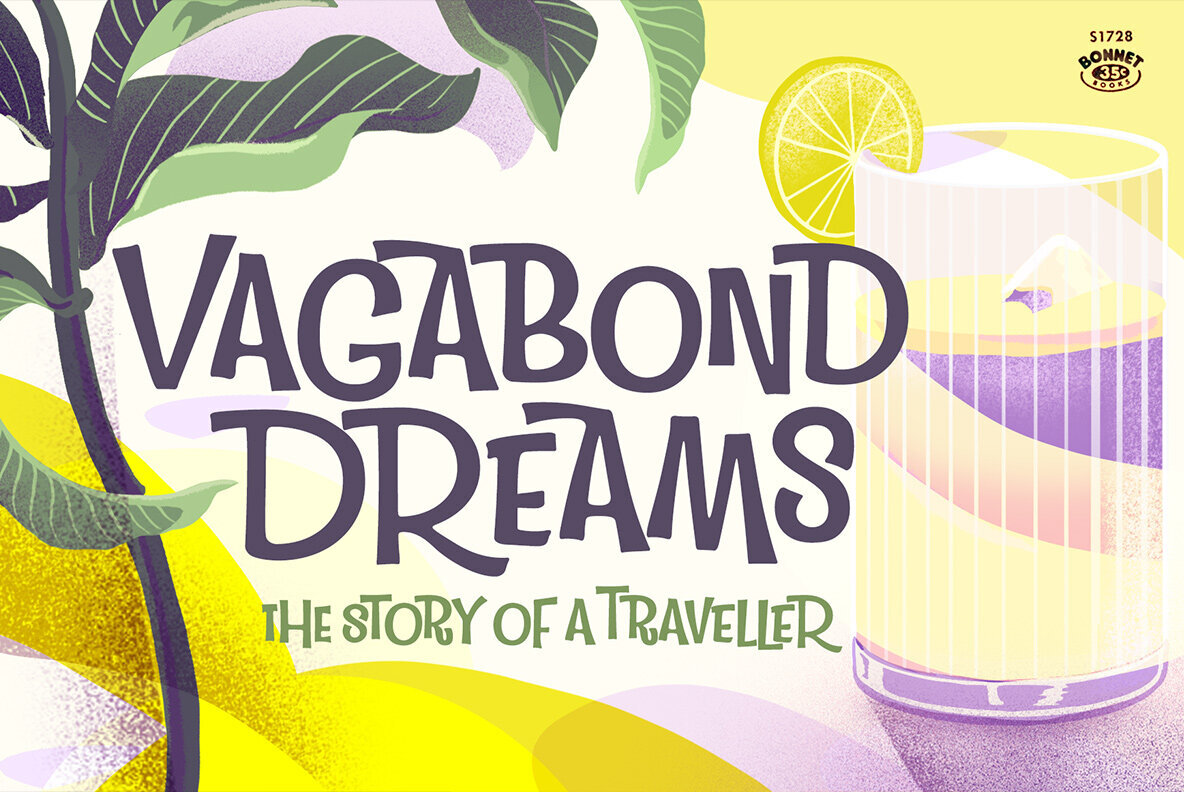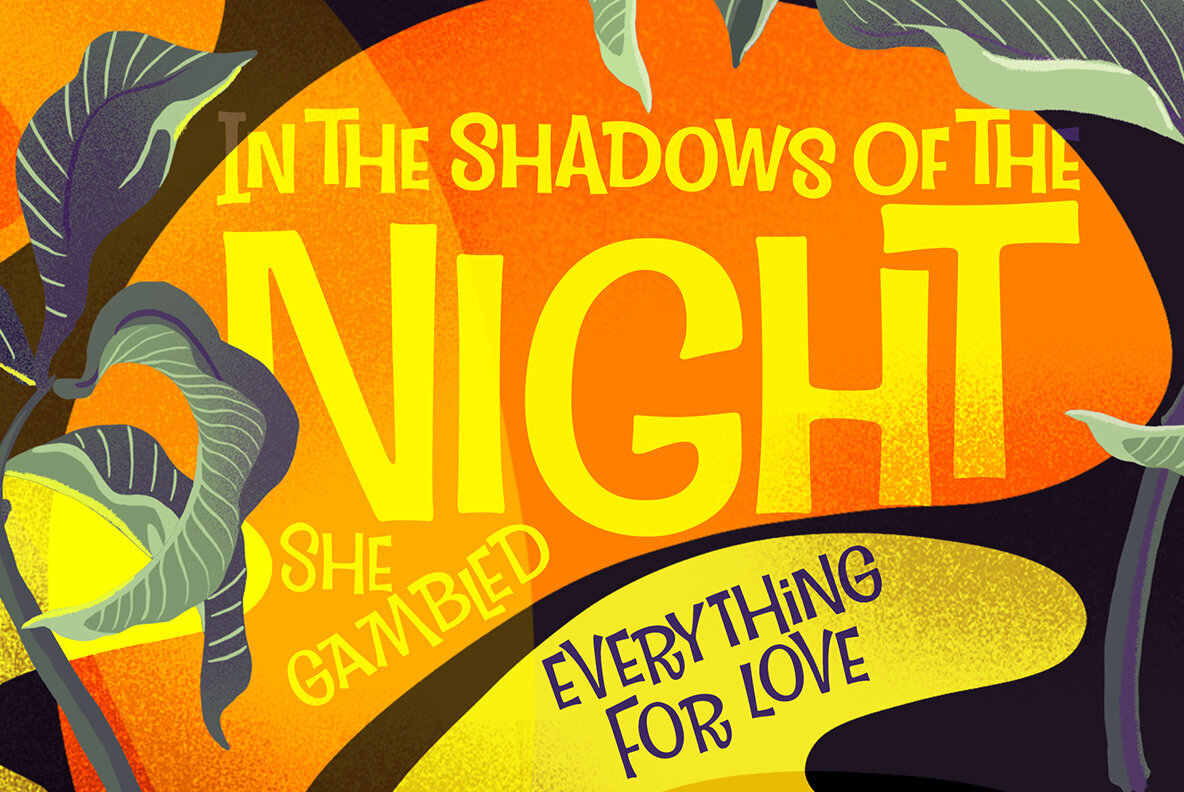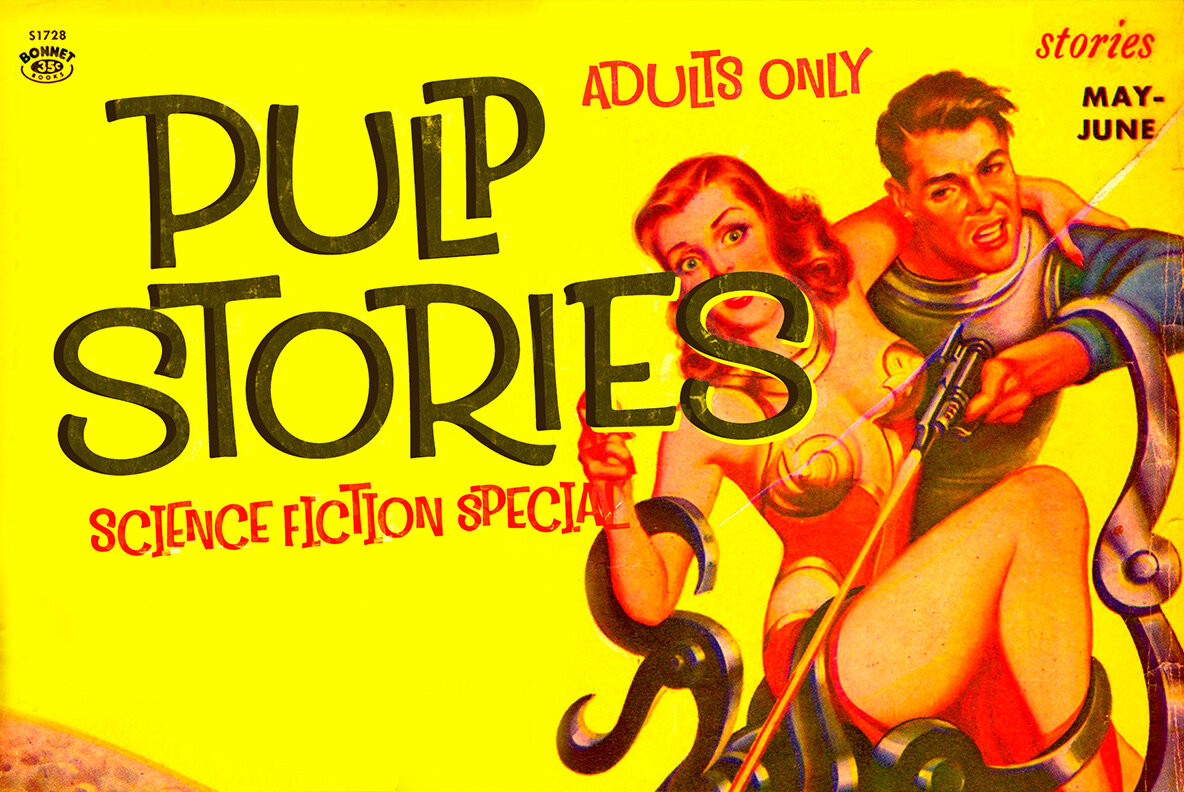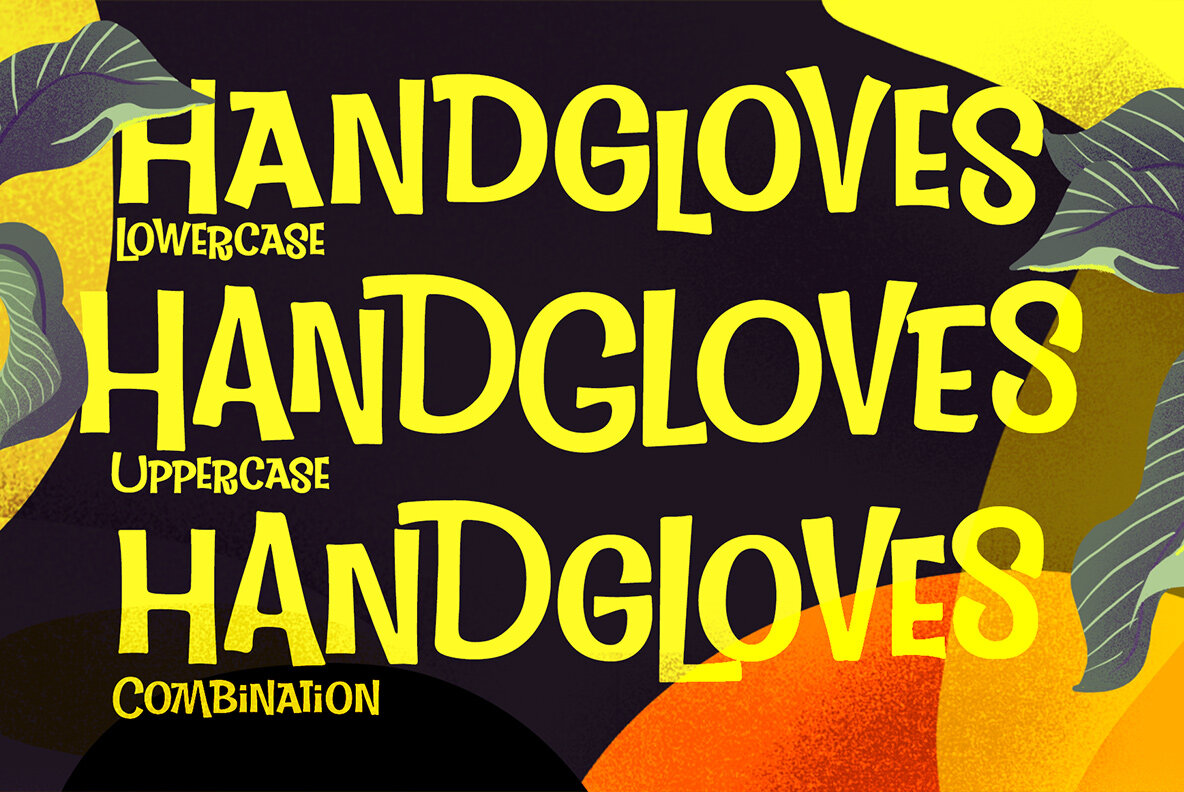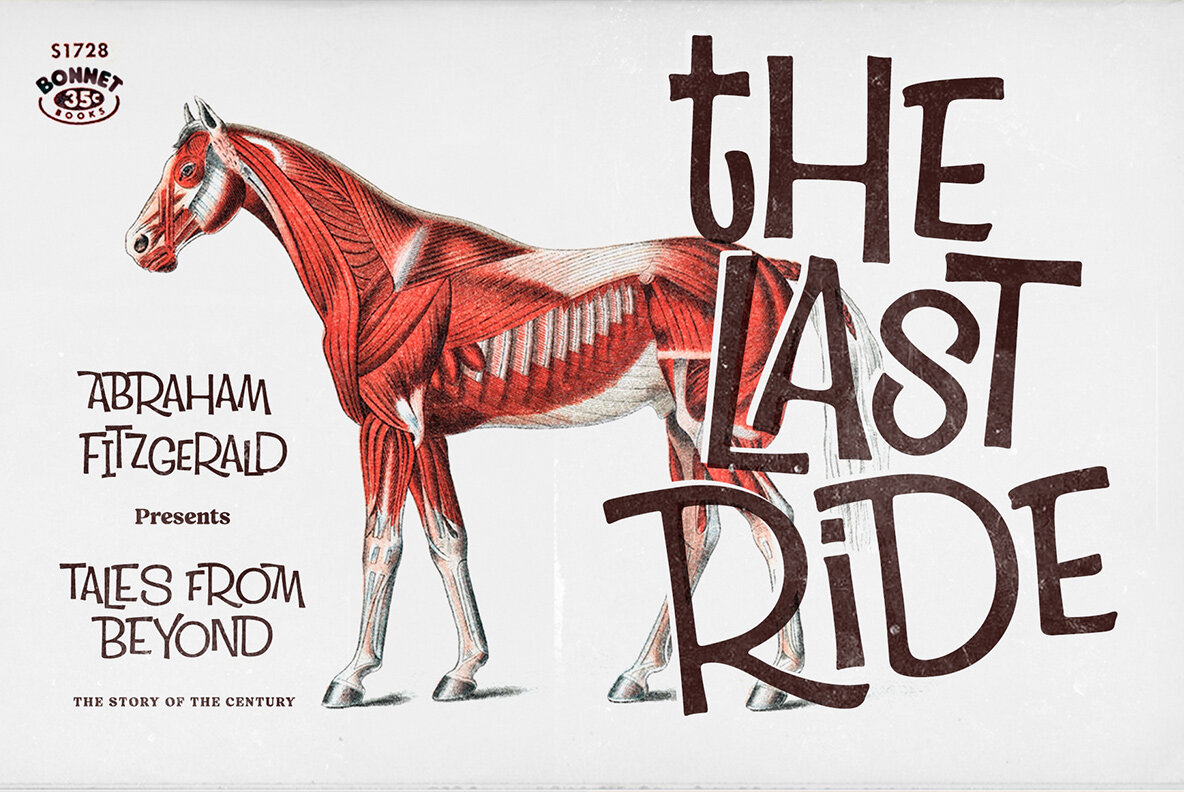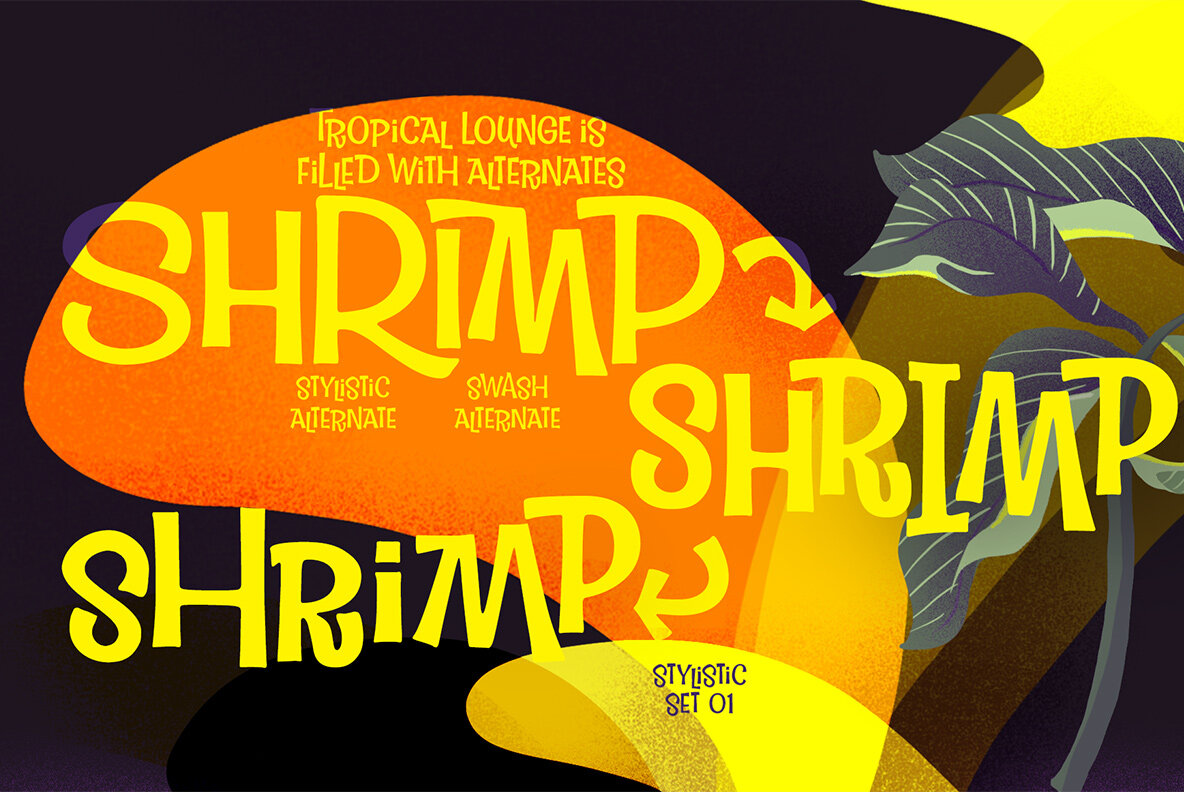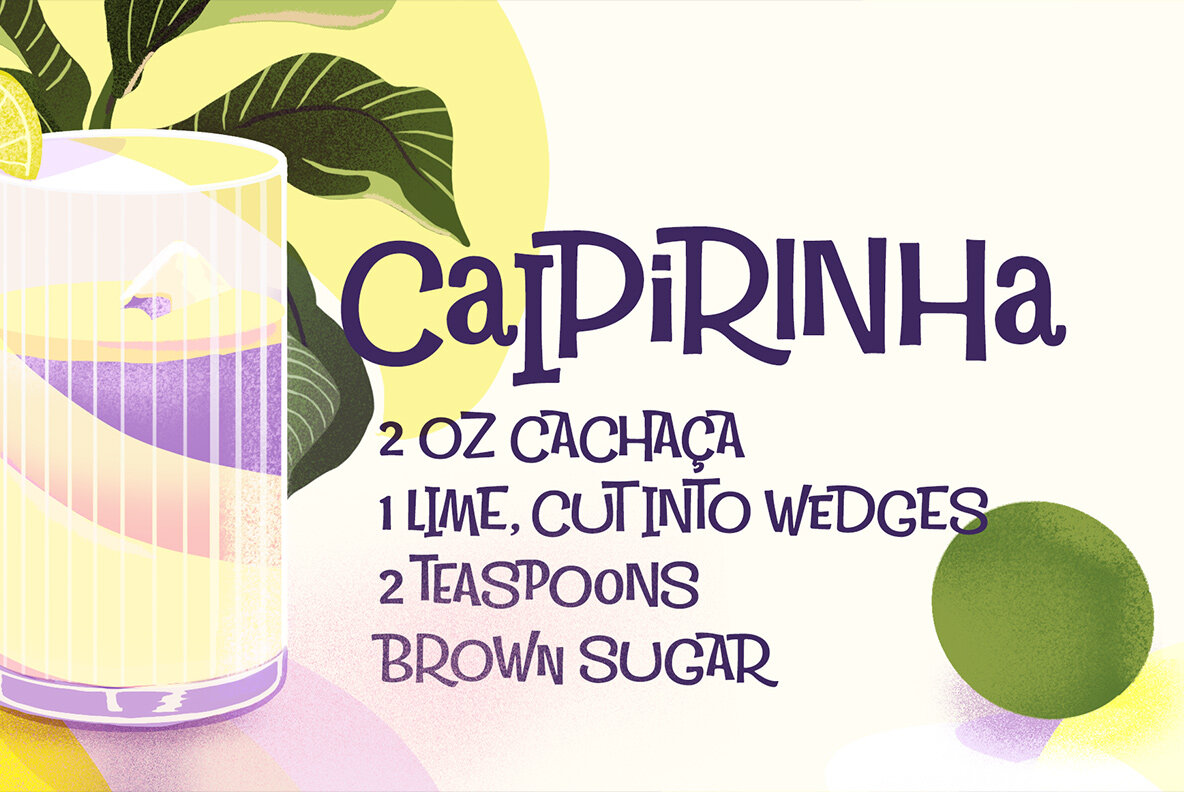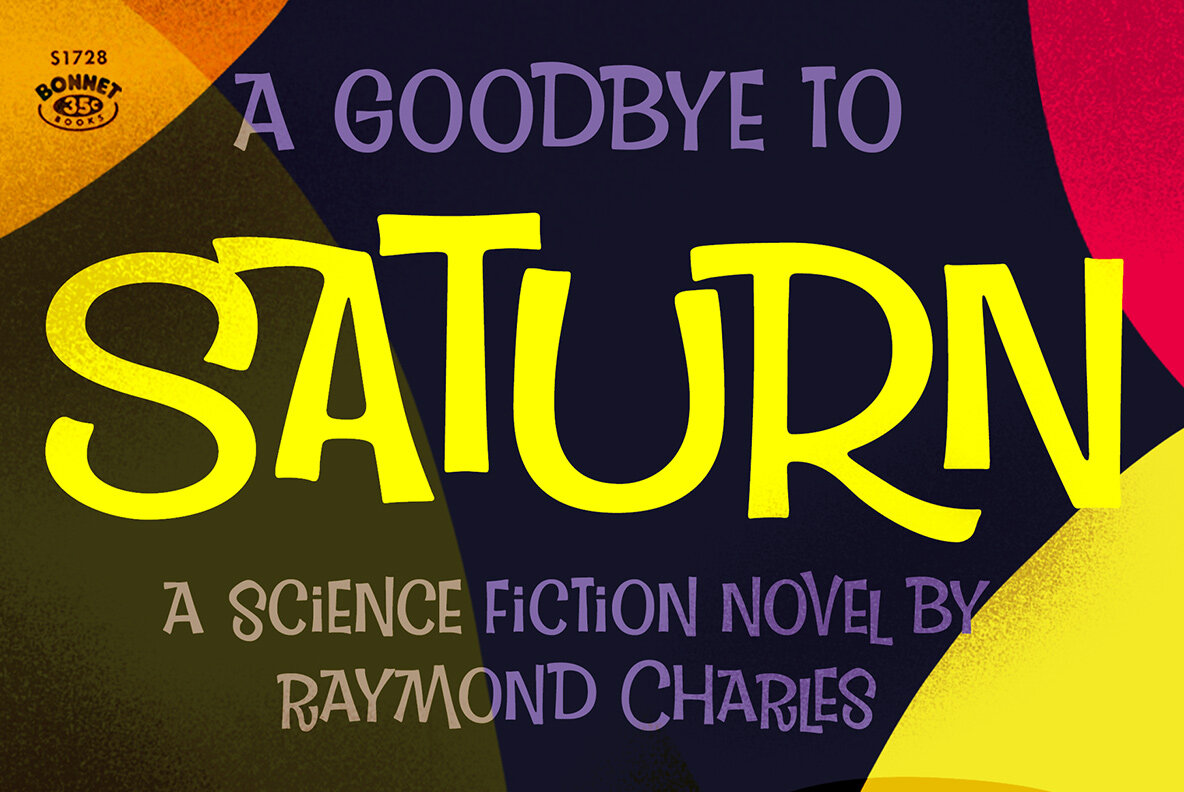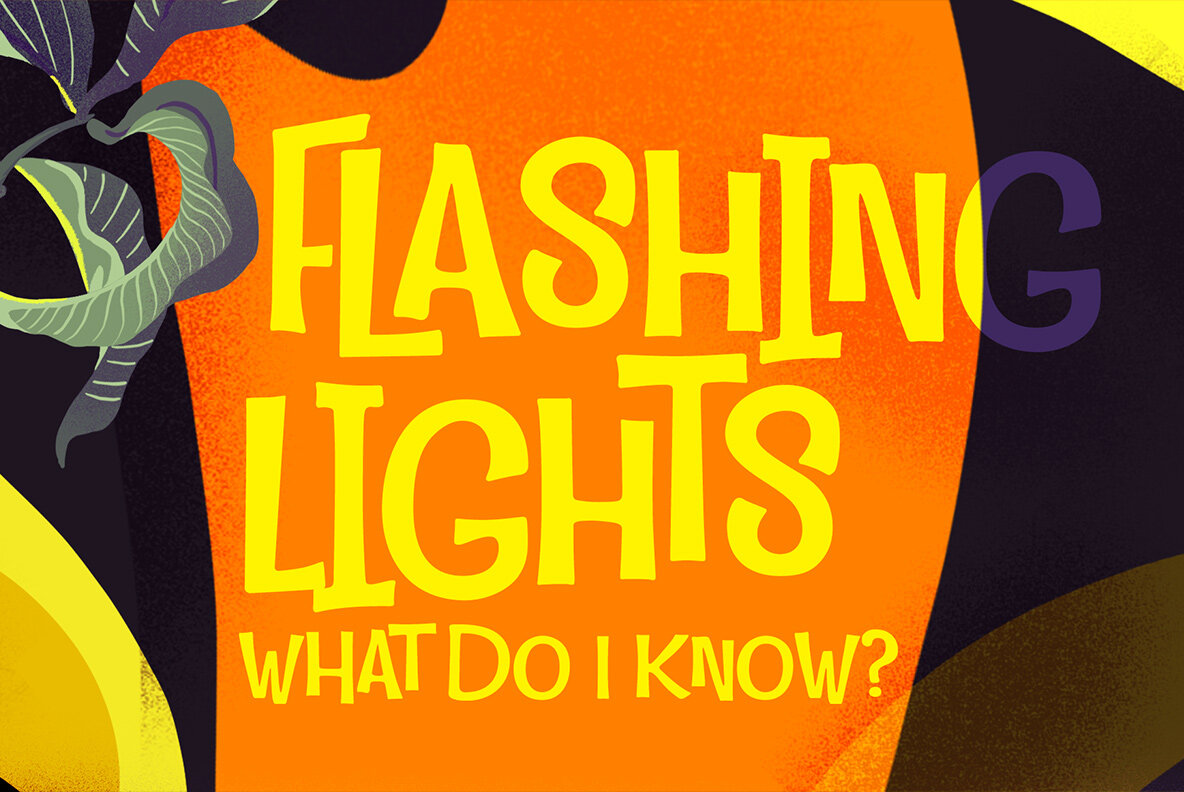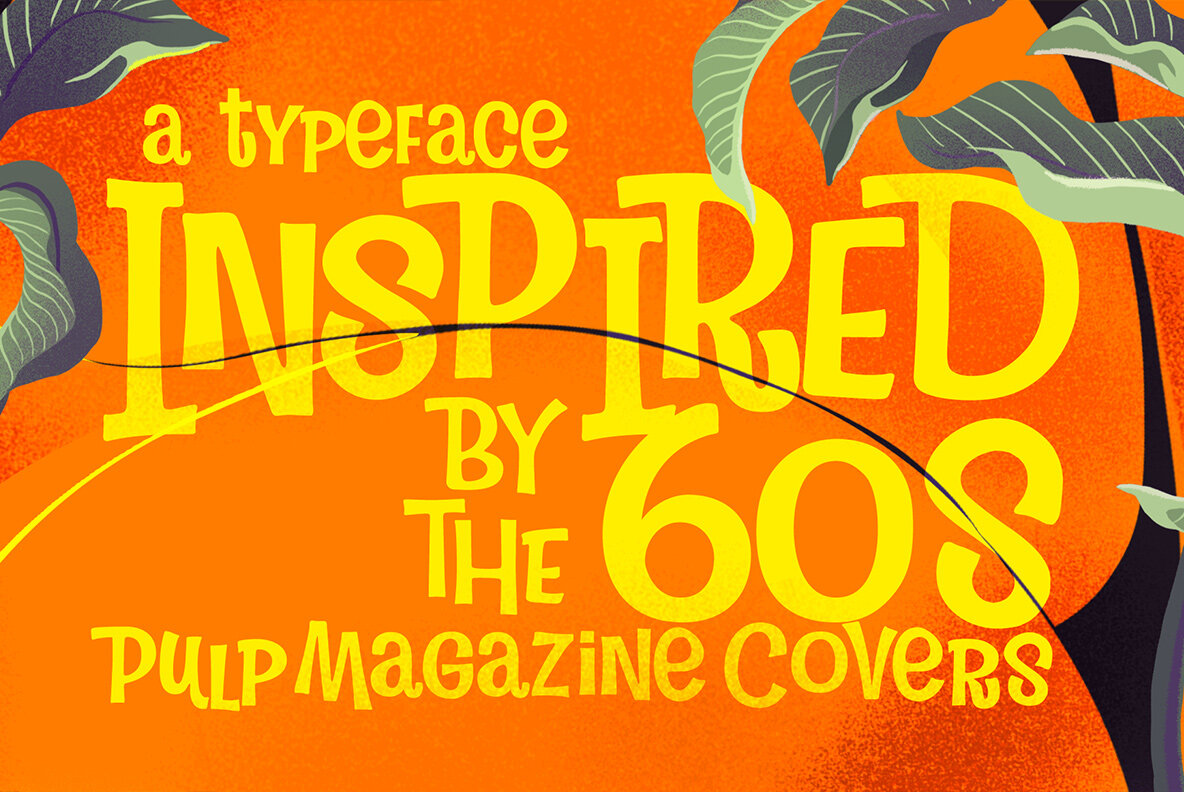
Travel Lounge Font
Tropical Lounge Regular
Tropical Lounge Bold
Tropical Lounge is an interlocking display typeface inspired by the hand lettering in 60s pulp magazine covers. It’s filled with a playful and vibrant 60s vibe, as well as modern OpenType features. Contextual Alternates switch the previous letter depending on the following one, giving it a bouncy, jazzy feeling. Both lowercase and uppercase letters are capitals, but uppercase features a set of taller and wider letters. You can also mix and match uppercase and lowercase for a suitable combination. In addition, Tropical Lounge has a set of Swash and Stylistic Alternates that can be used for a larger variety. There are also lining numbers and a set of arrows and swooshes in lowercase Stylistic Set 1.